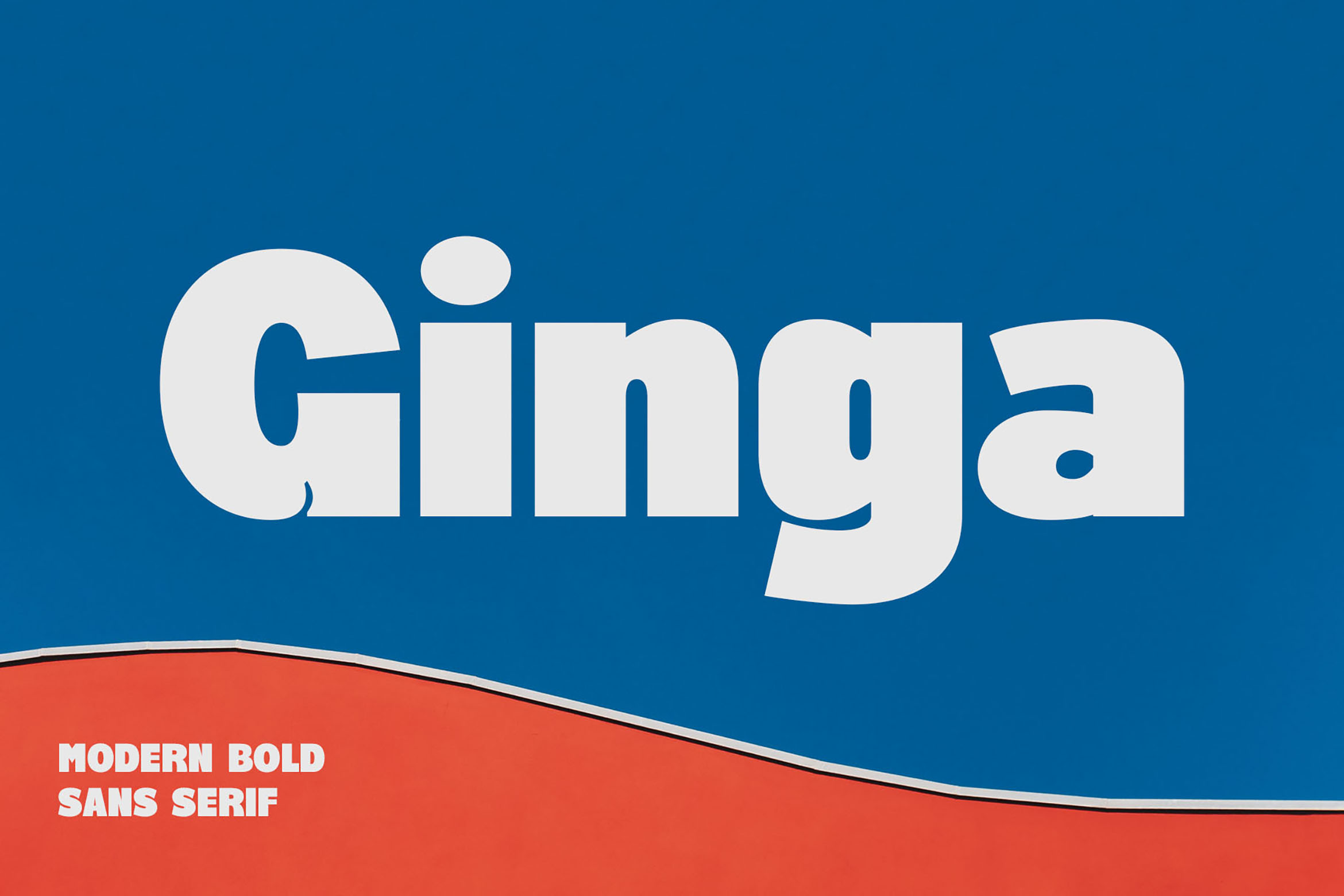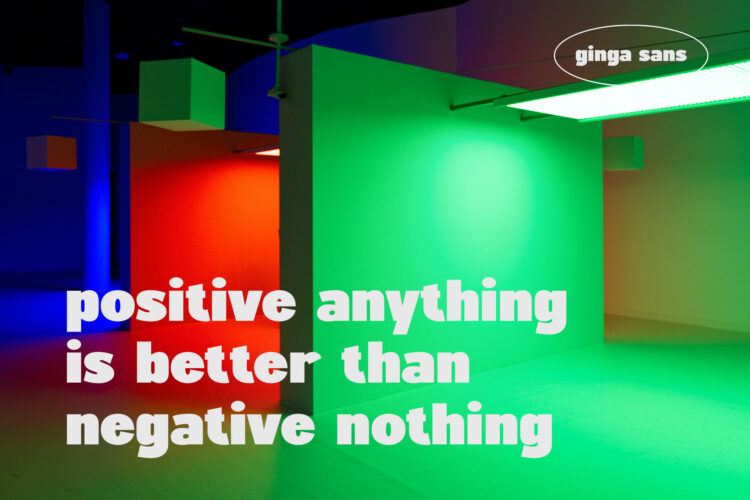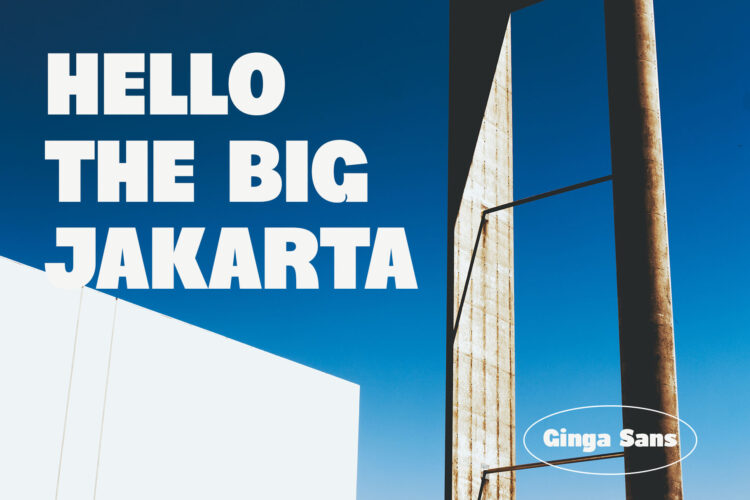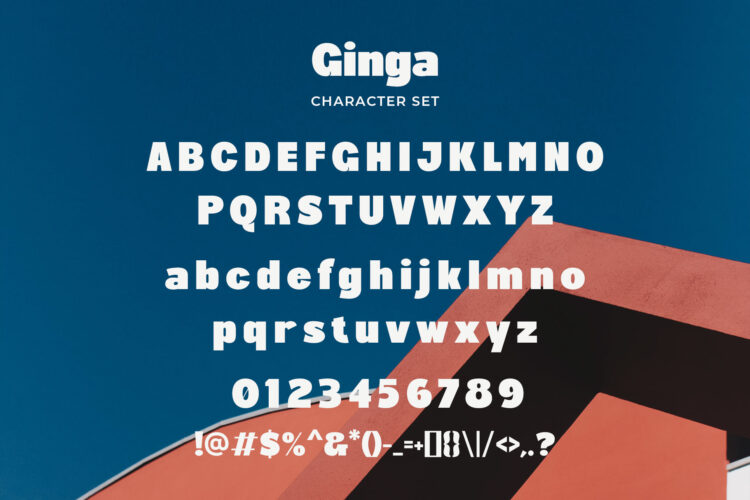
Introducing our new Ginga, modern sans serif font with elegant style this is perfect for branding, logos, invitation, magazines, product packaging and more.
Ginga – Modern Bold Sans Serif